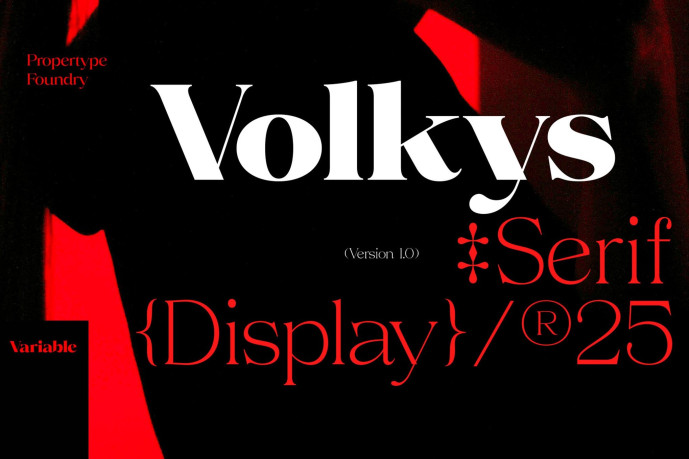
Volky Font Family
Volkys Font Family is a high-contrast typeface inspired by transitional and contemporary fonts. This typeface expands its use by offering weights ranging from thin to black. Natural curves, slanted stems, and slants become more pronounced as the letter thickness increases. Thinner weights have lower contrast and optical correction to create a warm and soft appearance. It also features beautiful italics, excellent weights, and extensive language support.
Volkys Serif Font excels in display settings such as headlines, titles, brand projects, logo designs, packaging, magazine titles, advertisements, short or long texts.